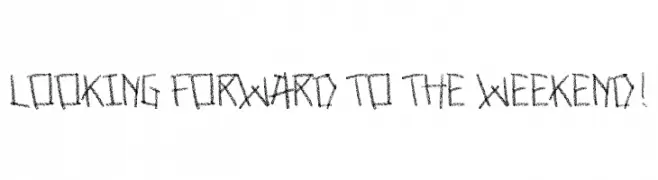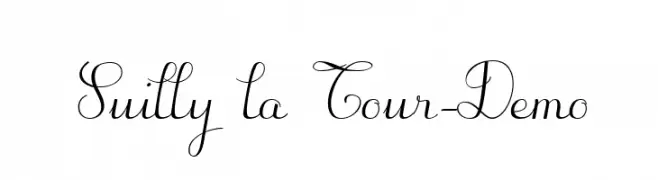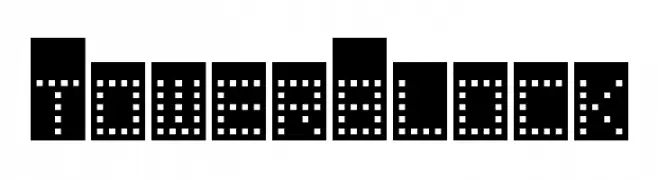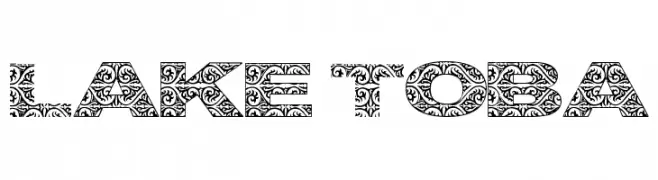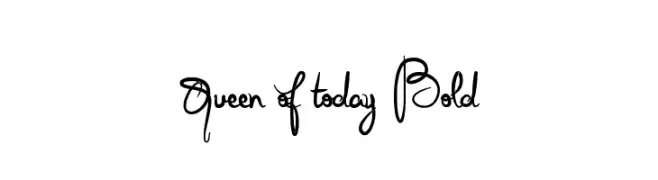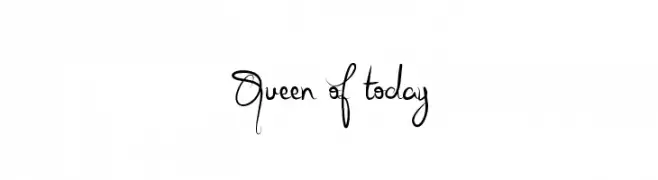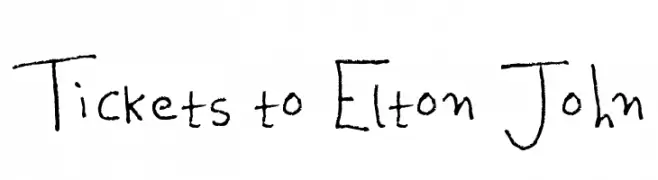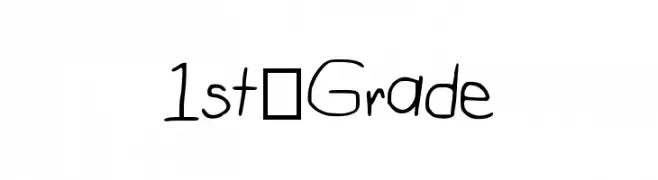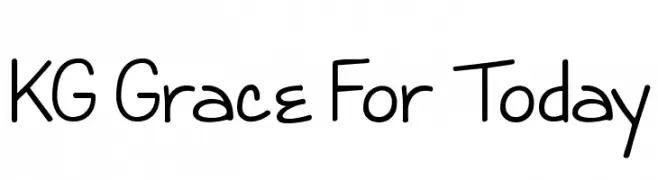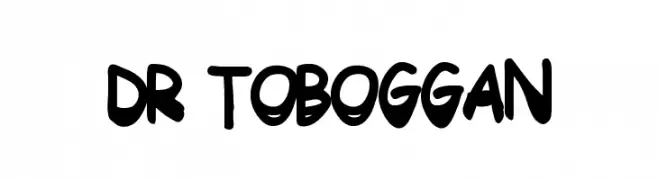
A bold, hand-drawn font with a vintage, distressed look.
A digital, dot-matrix style font with a modern and futuristic look.
An artistic, cursive font with elegant loops and swirls.
An elegant and whimsical script font with flowing, interconnected letterforms.
A playful, handwritten font with irregular strokes and a casual vibe.
A playful, casual handwritten font with an informal and whimsical style.
A playful, casual handwritten font with rounded, irregular letterforms.
A playful, dotted decorative font with consistent stroke width.
A bold, playful handwritten font with thick, rounded strokes.
A playful, handwritten font with a casual and whimsical style.
A distressed, fragmented italic font with a chaotic yet readable style.
A sketch-style font with hand-drawn, textured characters.
A bold, modern font with geometric lines and a strong presence.
A bold, distressed font with a vintage, stamp-like appearance.
A playful handwritten font with smooth, rounded strokes and a friendly appearance.
A playful, casual handwritten font with fluid strokes and a natural feel.
A distressed, hand-drawn font with a grunge aesthetic.
A playful, hand-drawn font with rounded edges and a casual style.
A bold, playful handwritten font with energetic strokes.
A playful, handwritten font with rounded edges and a casual style.
A playful, handwritten font with an informal and casual style.
A playful and expressive font featuring emoticon-like characters with exaggerated facial expressions.
A tall, narrow font with sleek, elongated characters and tight spacing.
A playful, handwritten script font with smooth, connected letters.